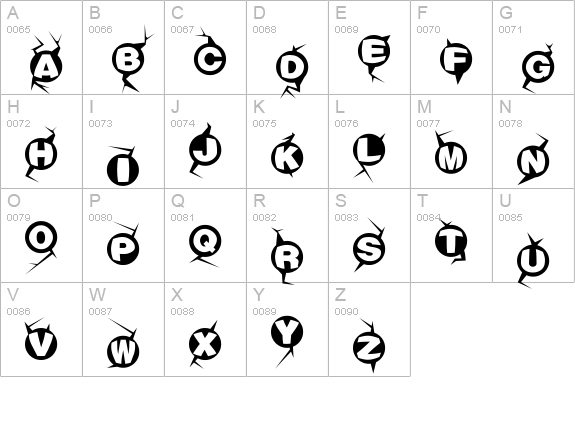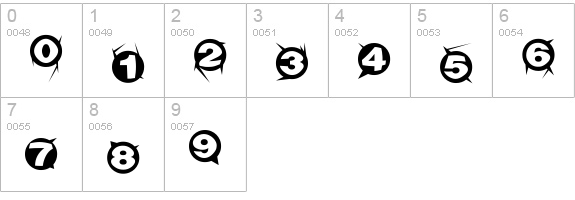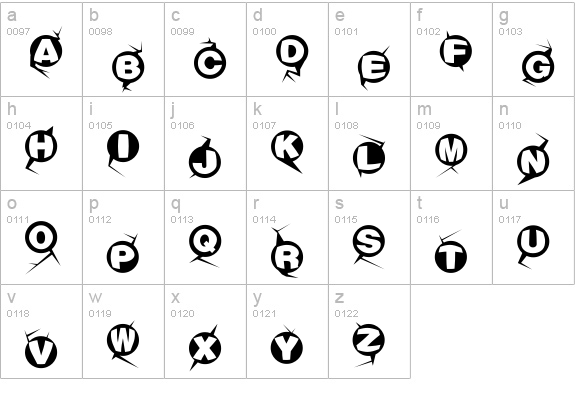
Machine-gun Font Details
Introducing the stunning and bold Machine-gun font, a powerful typeface that is sure to make a statement. This font exudes a sense of strength and intensity, perfect for capturing attention and leaving a lasting impression. With its distinct and sharp letterforms, Machine-gun font is designed to stand out in any design project. Whether you're creating a poster, logo, or website, this font will add a touch of edginess and charisma. Its unique style is inspired by the precision and rapidity of a machine gun, symbolizing speed and efficiency. But what makes this font even more appealing is that it is free! That's right, you can freely download the Machine-gun font at FontsMarket.com. It's a fantastic opportunity to enhance your designs without breaking the bank. This font offers unrivaled quality and versatility, all while being accessible to everyone. Not only is the Machine-gun font visually captivating, but it is also highly legible. Its carefully crafted letterforms ensure that your message is clear and easy to read, even from a distance. This font truly embodies the perfect balance between style and functionality. So, whether you're a professional designer or a creative enthusiast, the Machine-gun font is a must-have in your font library. Its bold and commanding presence will elevate your designs to new heights. Don't miss out on this incredible opportunity to download the Machine-gun font for free at FontsMarket.com. Grab it now and unleash the power of this exceptional typeface in your next project.